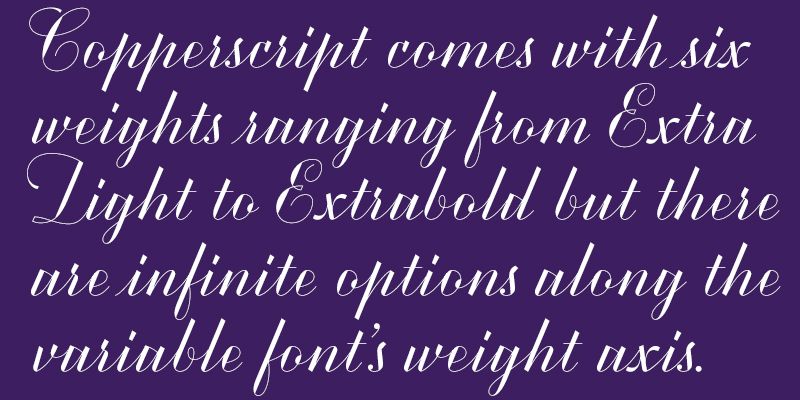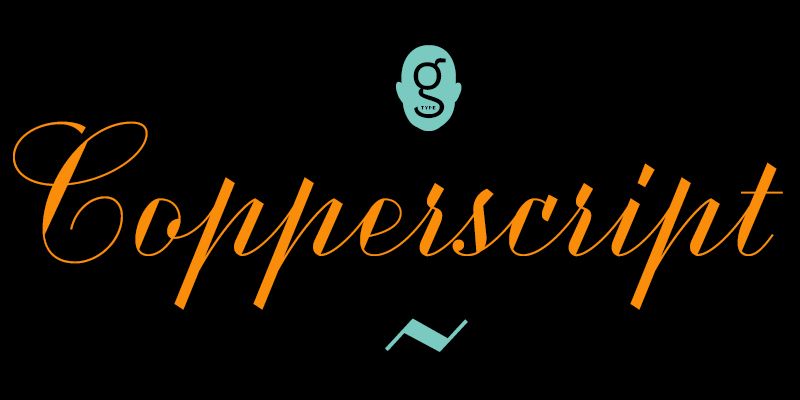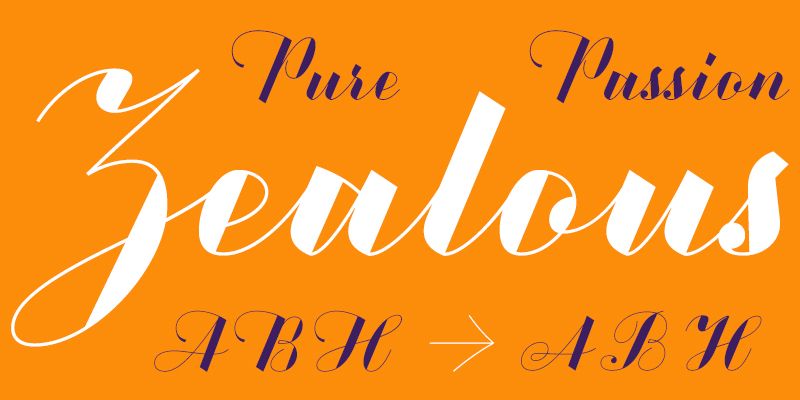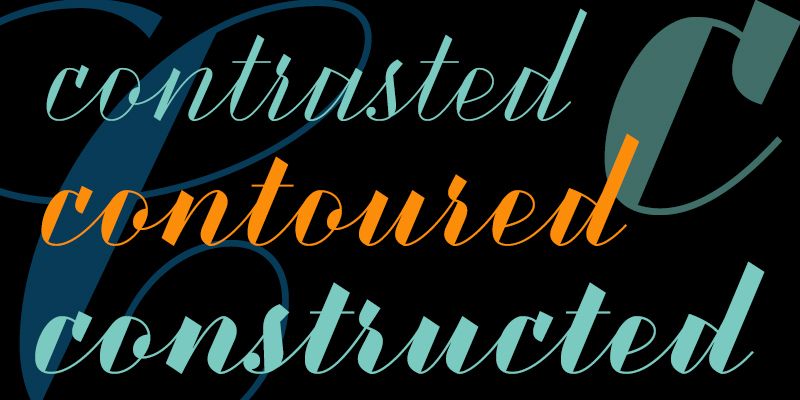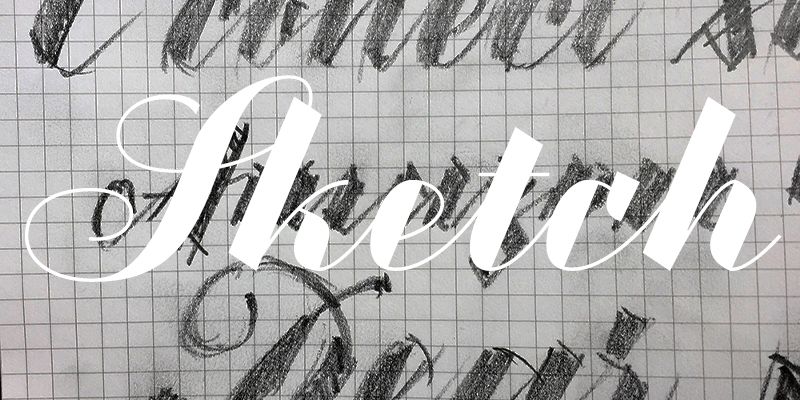
As the name suggests this typeface is a constructed Copperplate Script, an archaic style given a modern typographic twist. The single axis Variable Font (weight) reads beautifully at all sizes.